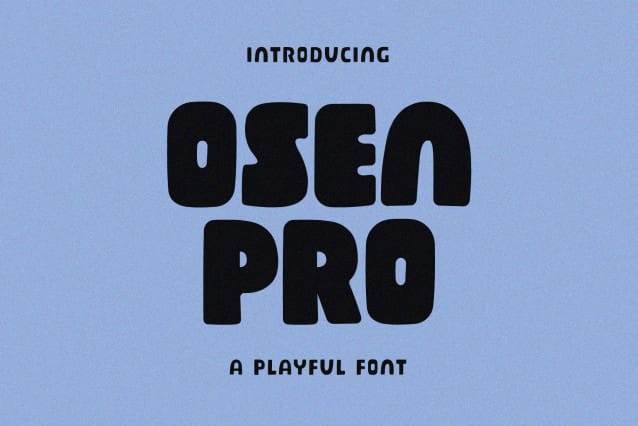
Osen Pro Font
Osen Pro Font, is a chunky, comic, and cartoon display font. With its neat and joyful personality, this font will enhance any project you wish to create!